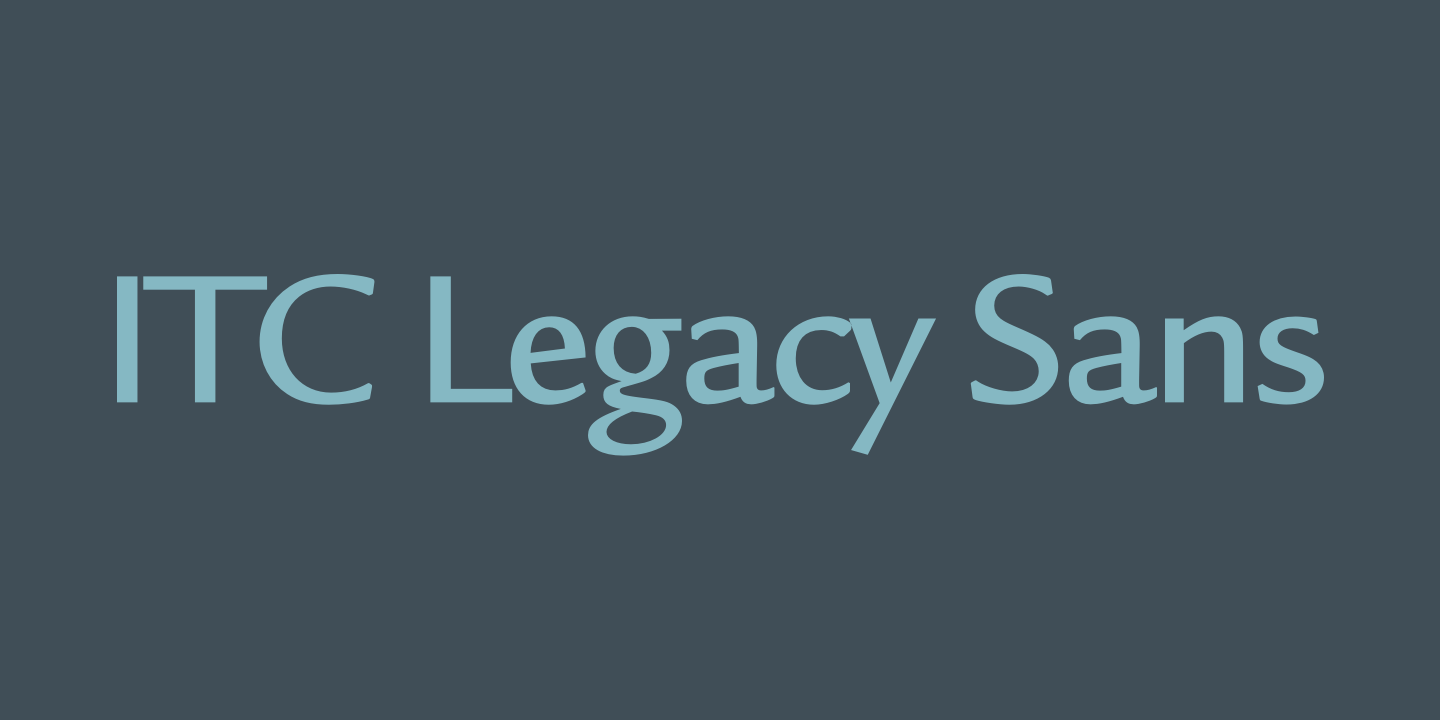
ITC Legacy Sans Font is perfect for heritage brand communications, institutional publications, established law firms, traditional academic materials, corporate annual reports, and timeless editorial design. Its distinguished character makes it ideal for universities, museums, financial institutions, government agencies, and any application requiring authoritative typography that conveys institutional credibility, historical significance, and enduring professional excellence.
ITC Legacy Sans Font is exciting because it masterfully combines the gravitas of traditional serif typography with the clarity and modernity of sans-serif design, creating a typeface that honors typographic heritage while embracing contemporary functionality. Its carefully balanced proportions and refined details reflect decades of typographic evolution and institutional trust, making it perfect for organizations seeking to project both tradition and progress. The font's legacy character builds instant credibility and institutional authority.
ITC Legacy Sans Font family includes heritage-quality weight variations typically featuring Light, Book, Medium, Bold, and Ultra options with corresponding italic styles and small caps. The family often incorporates classical proportions, extensive character sets, and traditional typographic features designed for formal institutional applications, providing designers with comprehensive tools for creating authoritative, time-tested typographic communications.